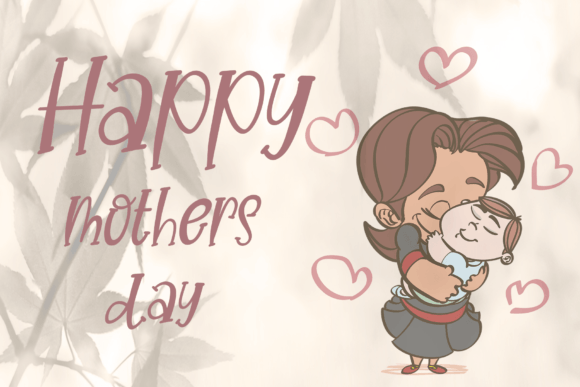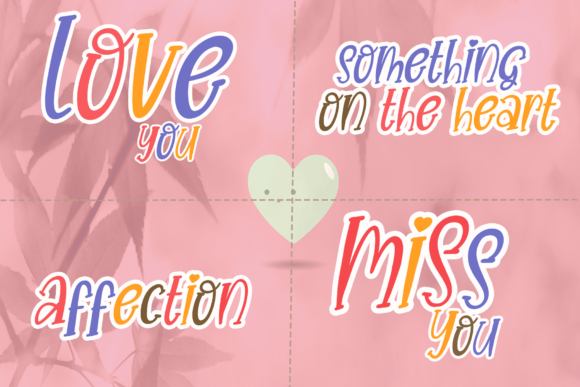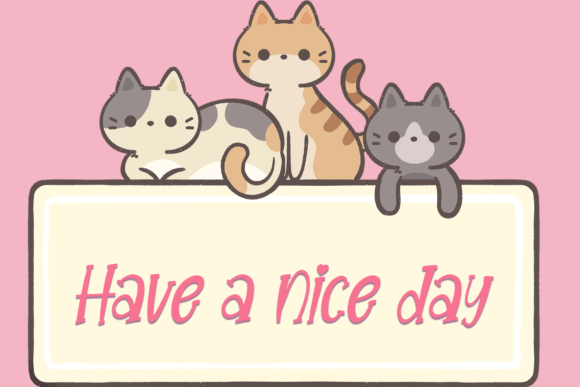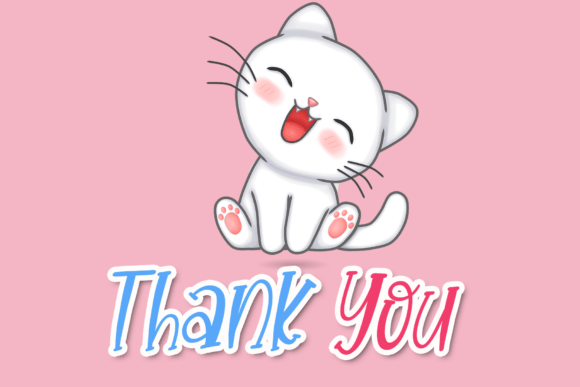
Introducing CREATIVE Vintage: A Beautiful Handwritten Font for Your Creative Projects
Are you a designer, crafter, or DIY enthusiast looking for a unique and elegant font to elevate your creative projects? Look no further than CREATIVE Vintage, a stunning handwritten font that is sure to impress. With its beautiful and flowing script, CREATIVE Vintage is perfect for a wide range of applications, from wall displays and wedding invitations to social media posts, logos, advertisements, product packaging, and more.
What Makes CREATIVE Vintage So Special?
CREATIVE Vintage is a carefully crafted font that is designed to add a touch of elegance and sophistication to any project. Its flowing script and beautiful letterforms make it perfect for creating eye-catching displays, while its readability ensures that your message is communicated clearly and effectively. Whether you’re looking to create a stunning wedding invitation, a unique logo, or a beautiful piece of artwork, CREATIVE Vintage is the perfect choice.
Uses for CREATIVE Vintage
CREATIVE Vintage is a versatile font that can be used in a wide range of creative projects. Here are just a few ideas to get you started:
- Wall Displays: Create stunning wall displays with CREATIVE Vintage, perfect for showcasing quotes, lyrics, or special messages.
- Wedding Invitations: Make your wedding invitations truly special with CREATIVE Vintage, adding a touch of elegance and sophistication to your big day.
- Social Media Posts: Elevate your social media posts with CREATIVE Vintage, creating eye-catching graphics and quotes that are sure to engage your audience.
- Logos: Create a unique and memorable logo with CREATIVE Vintage, perfect for branding your business or product.
- Advertisements: Use CREATIVE Vintage to create stunning advertisements that grab attention and communicate your message effectively.
- Product Packaging: Add a touch of elegance to your product packaging with CREATIVE Vintage, creating a beautiful and eye-catching design that stands out on store shelves.
- Product Designs: Use CREATIVE Vintage to create stunning product designs, from t-shirts and mugs to phone cases and tote bags.
- Labels: Create beautiful labels with CREATIVE Vintage, perfect for labeling products, files, or folders.
- Photography: Add a touch of elegance to your photography with CREATIVE Vintage, creating beautiful watermarks or overlays that enhance your images.
- Invitations: Create stunning invitations with CREATIVE Vintage, perfect for parties, events, or special occasions.
- Stationery: Use CREATIVE Vintage to create beautiful stationery, from greeting cards and thank-you notes to letterheads and envelopes.
Why Choose CREATIVE Vintage?
With so many fonts to choose from, why should you choose CREATIVE Vintage? Here are just a few reasons:
- Unique and Elegant: CREATIVE Vintage is a unique and elegant font that adds a touch of sophistication to any project.
- Highly Readable: Despite its elegant script, CREATIVE Vintage is highly readable, ensuring that your message is communicated clearly and effectively.
- Versatile: CREATIVE Vintage can be used in a wide range of creative projects, from wall displays and wedding invitations to social media posts and product packaging.